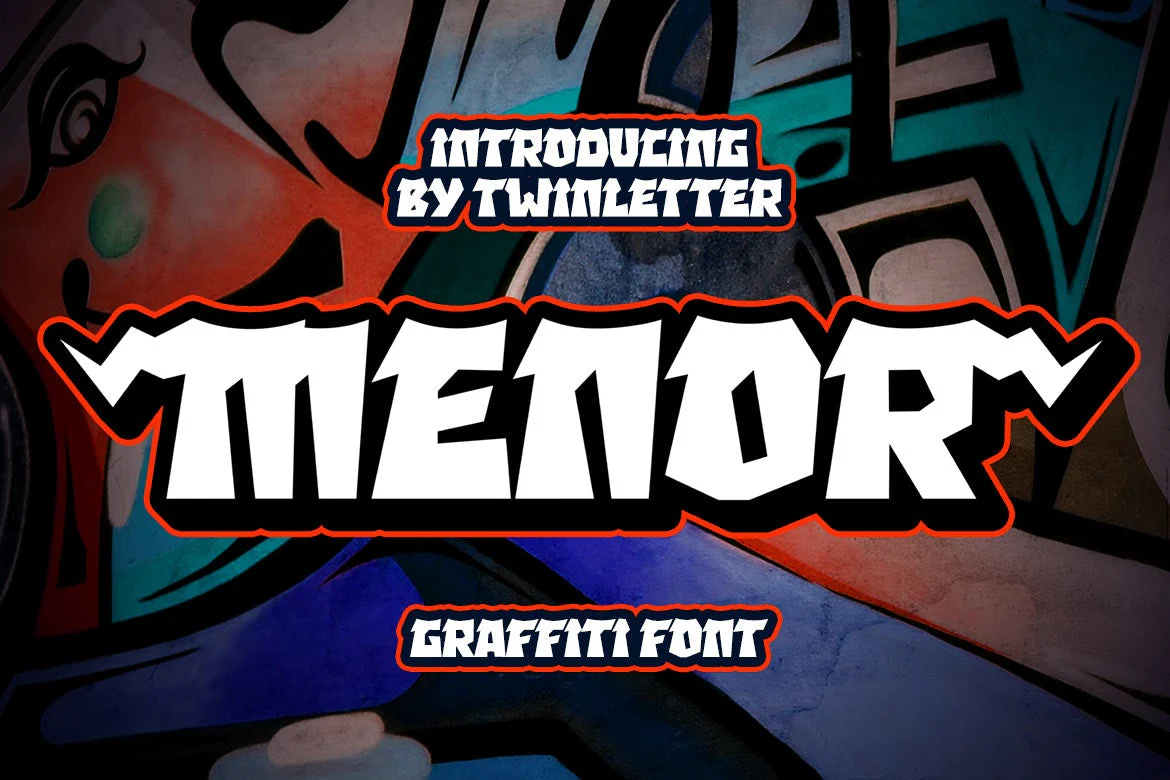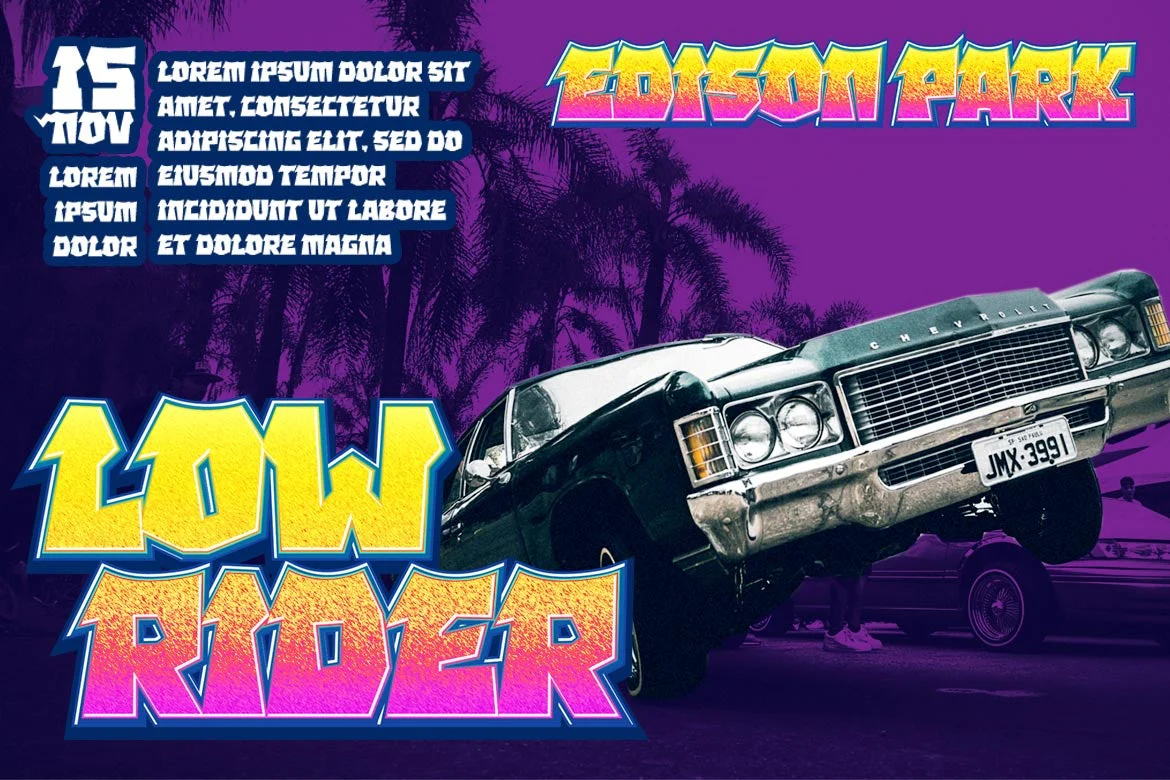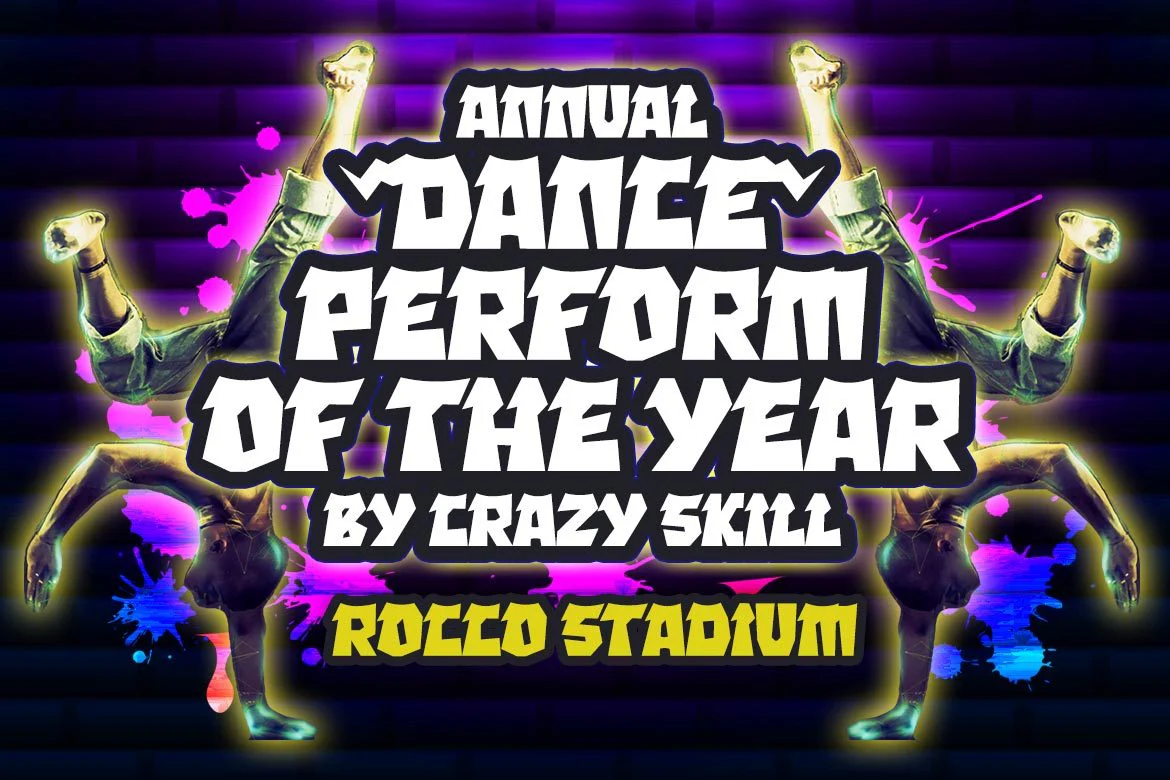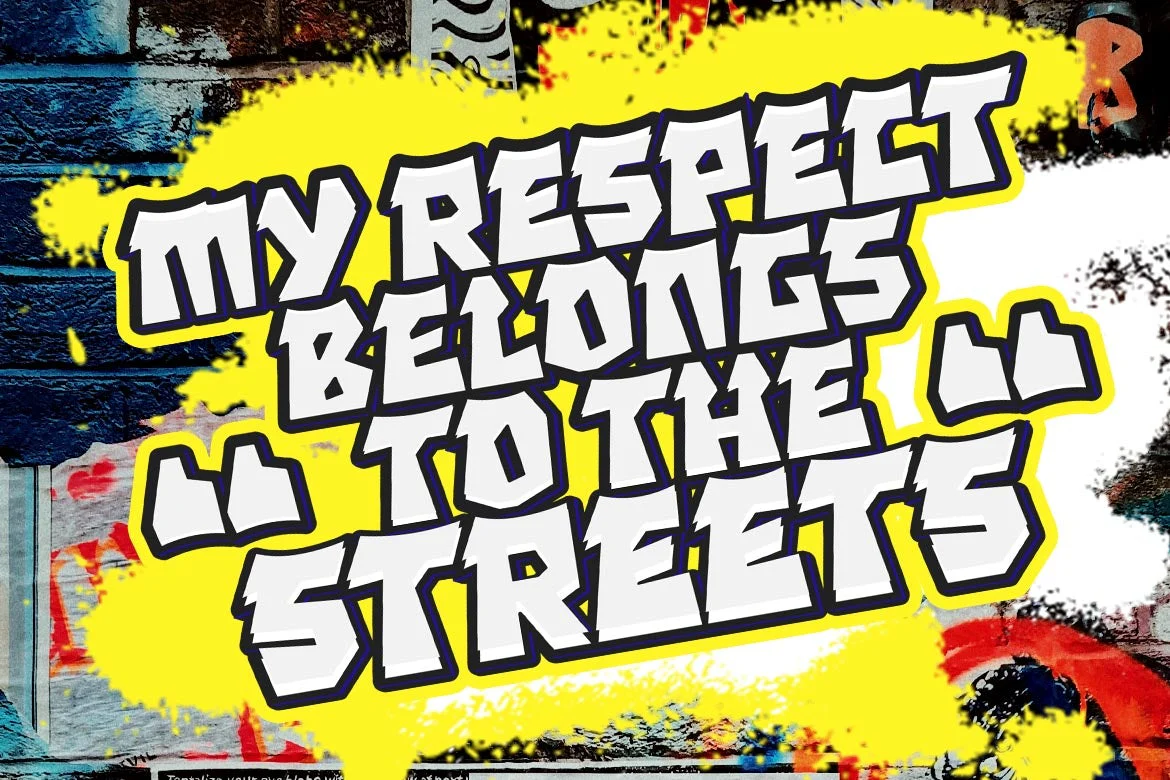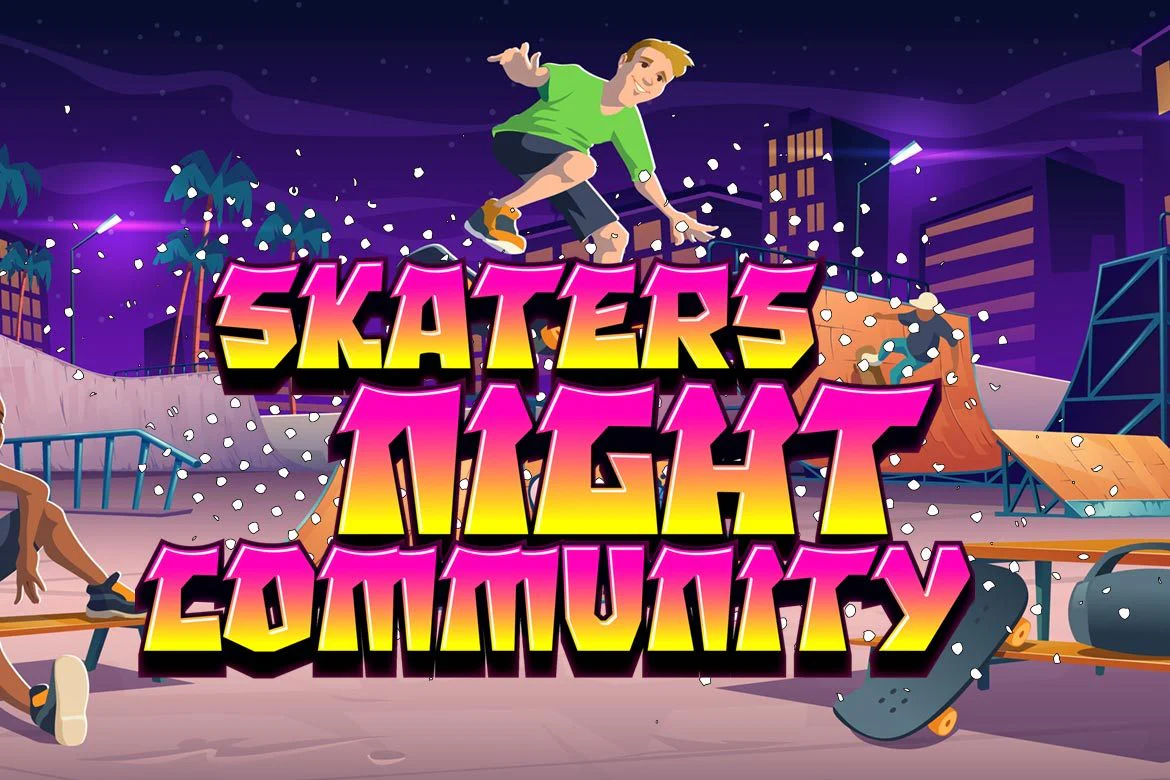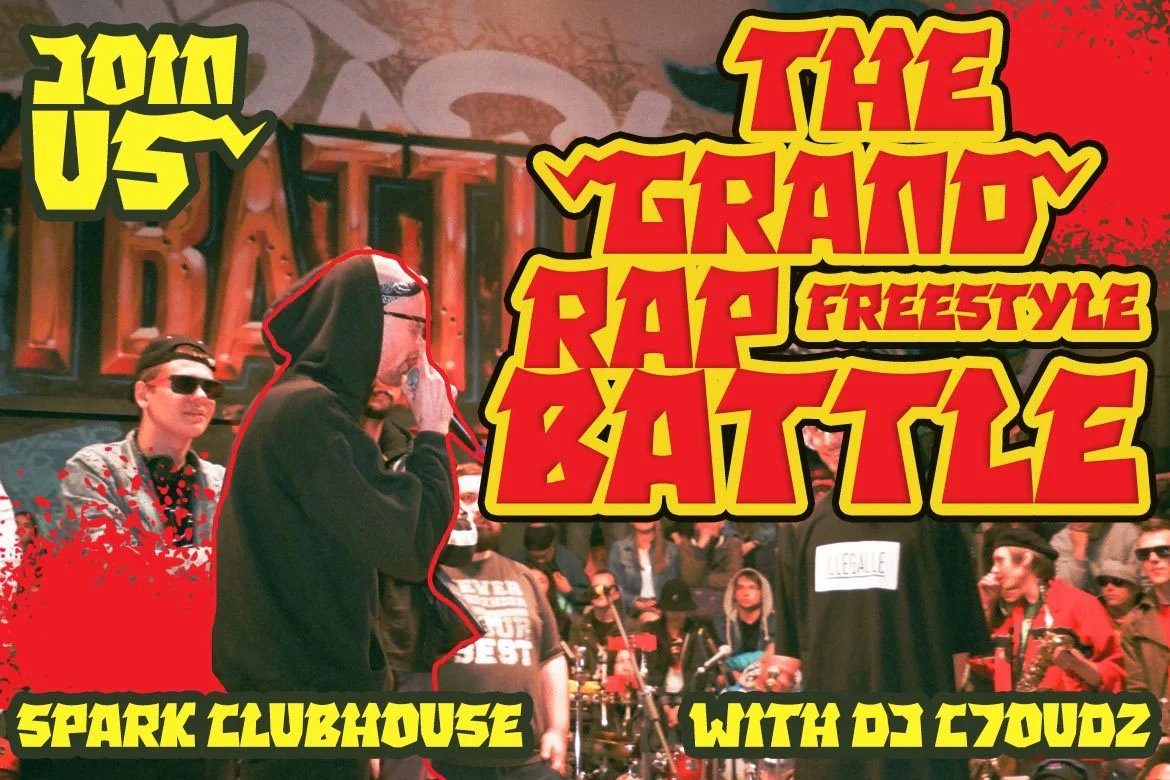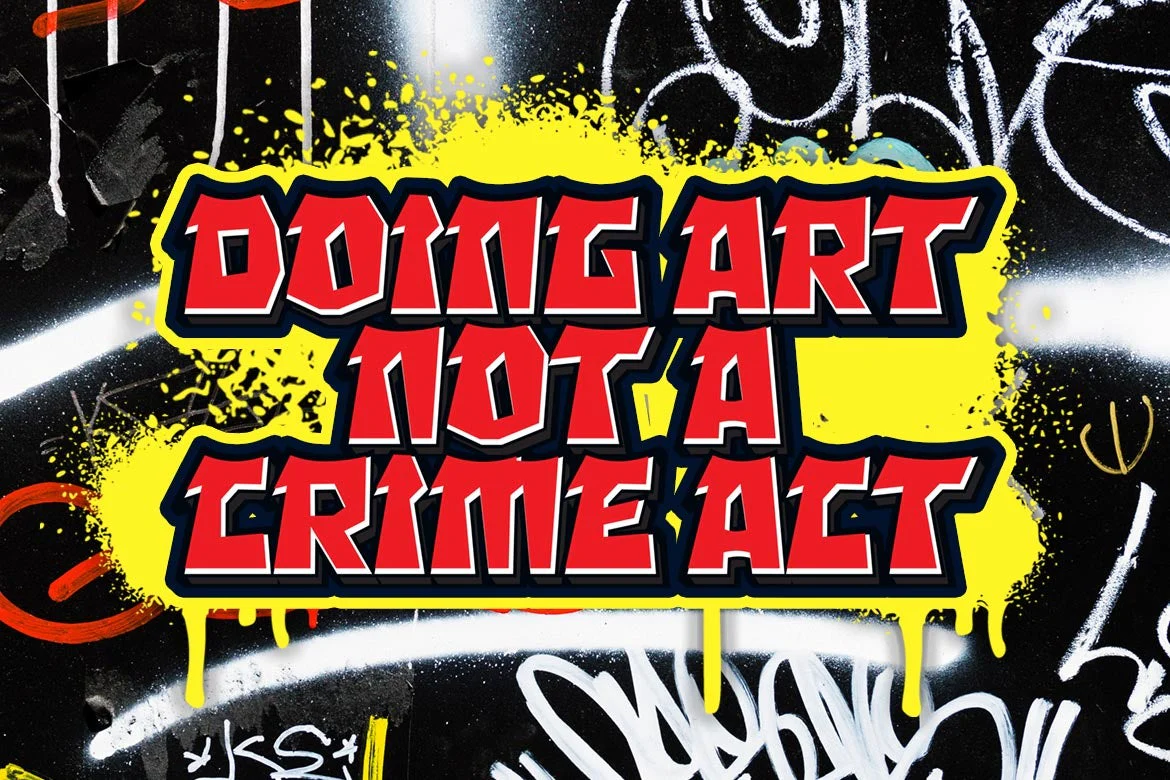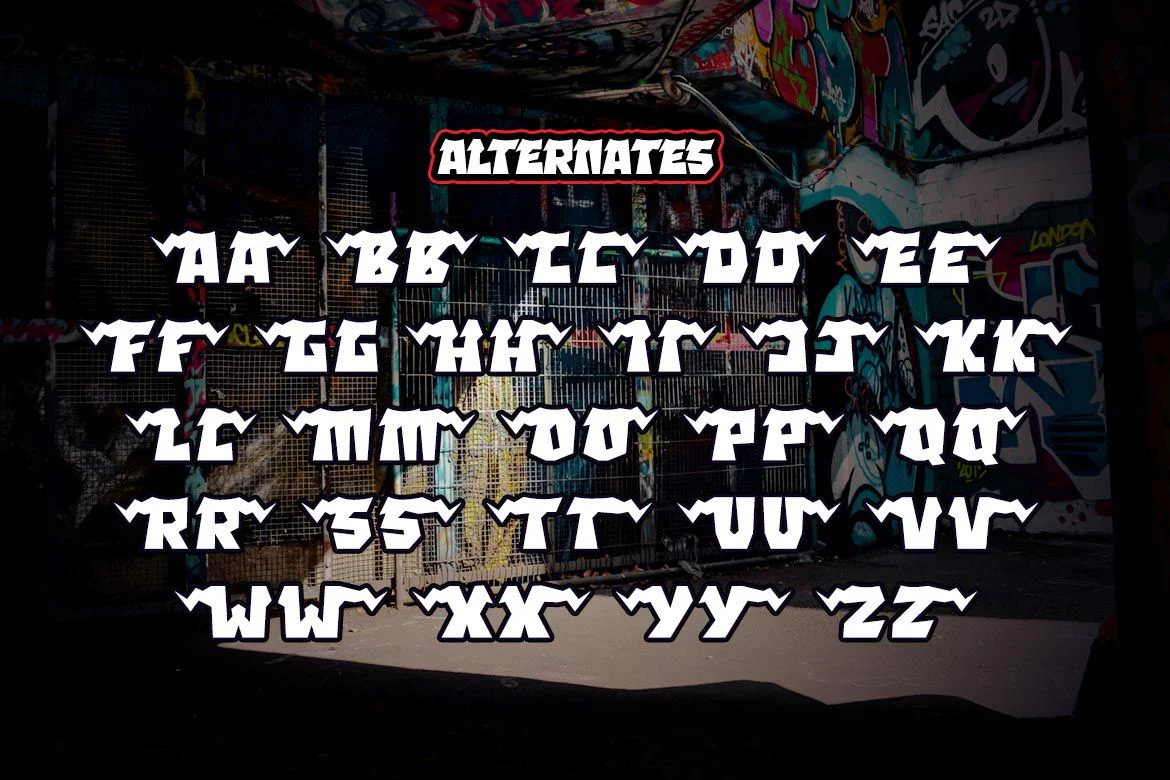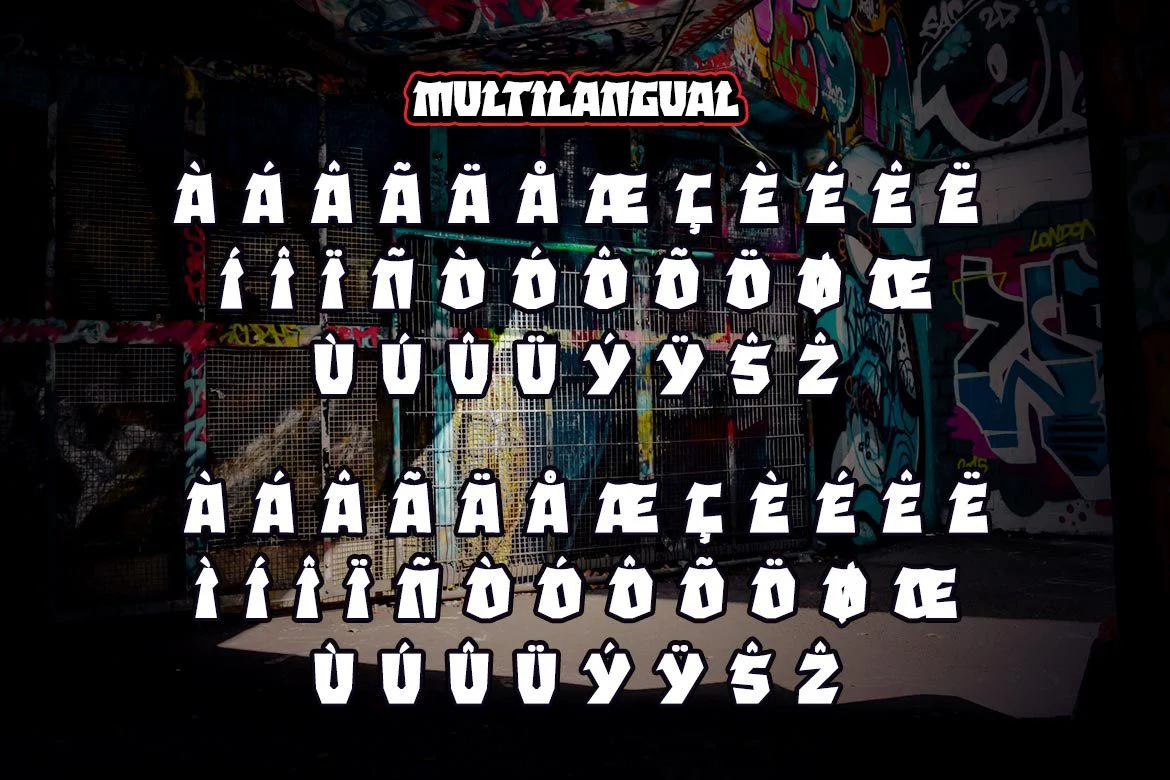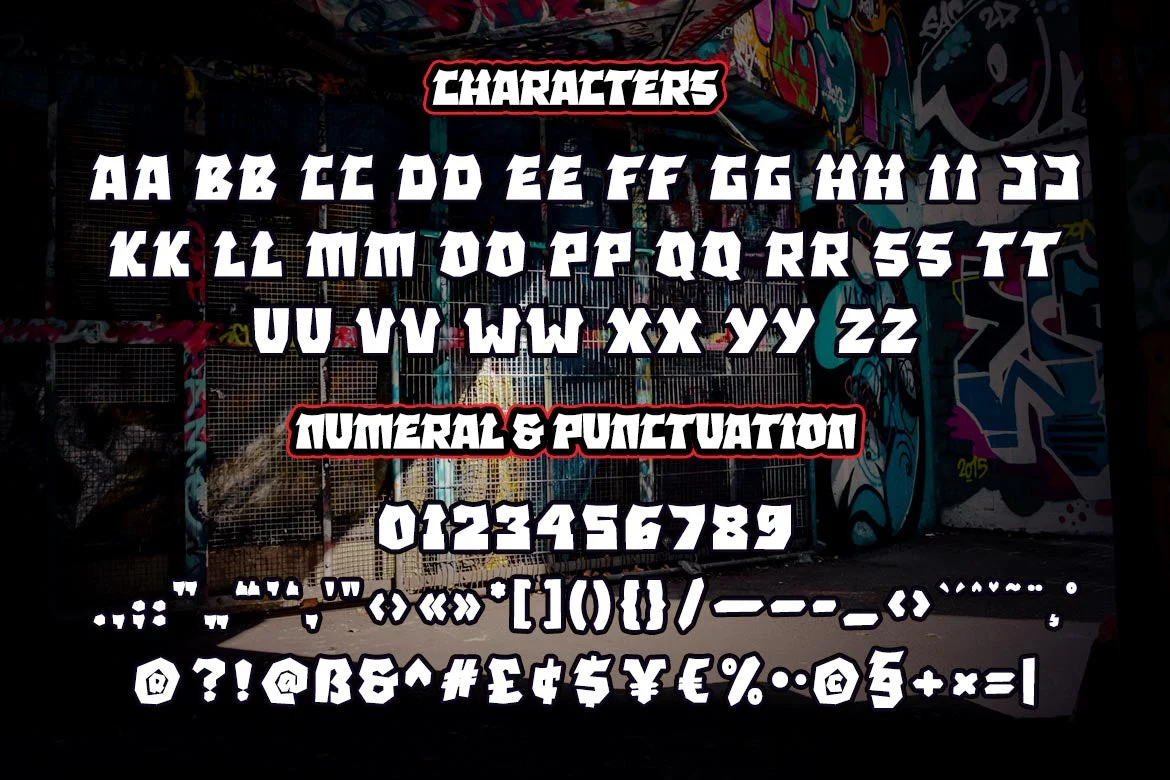
MENOR - Display Graffiti Style Font
Menor is a graffiti font with a distinctive and appealing abstract shape that has a unique shape in each character, making this font appropriate for your outstanding project. This font also contains an alternation of enormous letters to beautify your project, so don’t wait. Use this typeface once more to create a lovely and stylish project.
This graffiti font is great for product logos, poster titles, headlines, packaging, film titles, logotypes, gorgeous writing, and trendy graffiti designs, among other things.